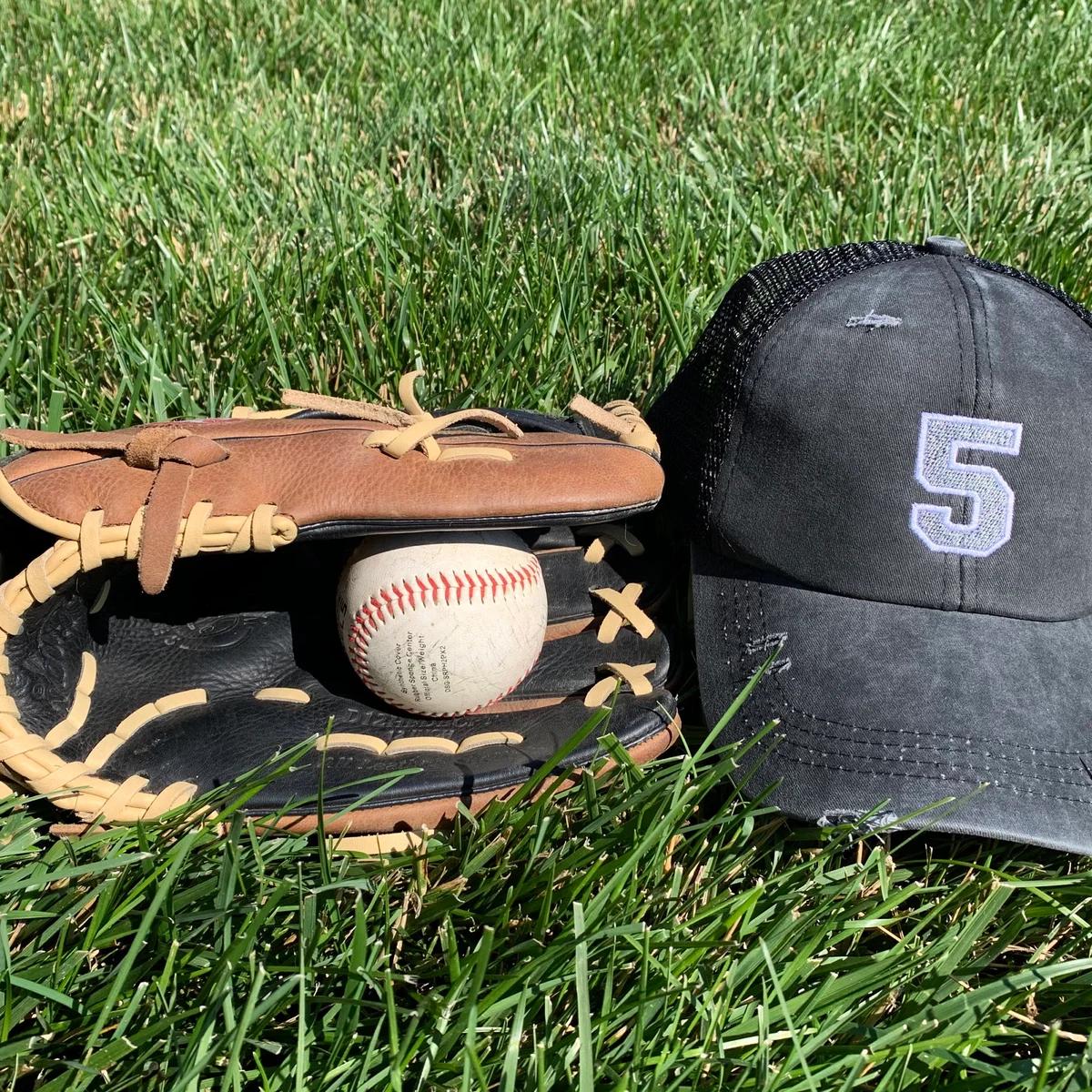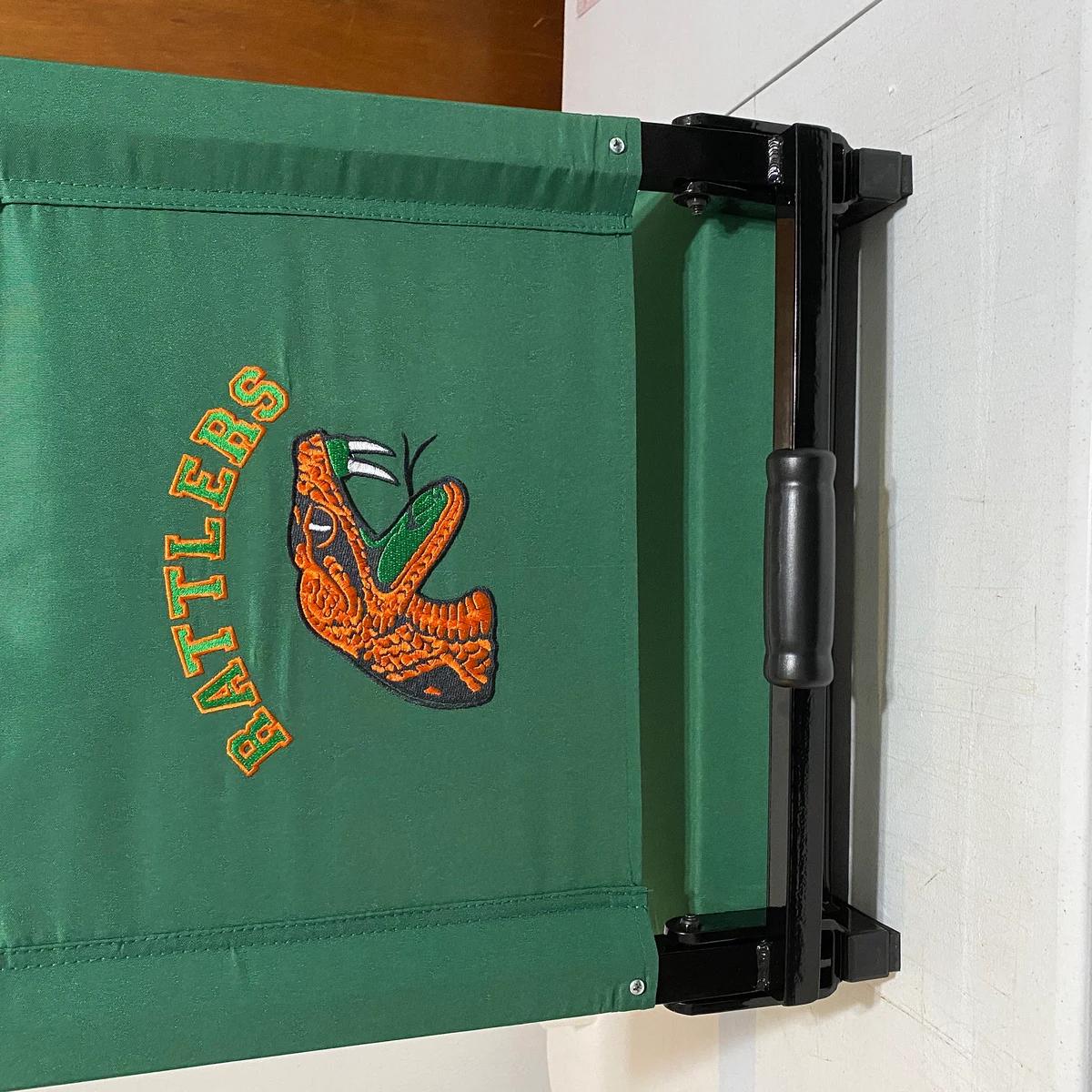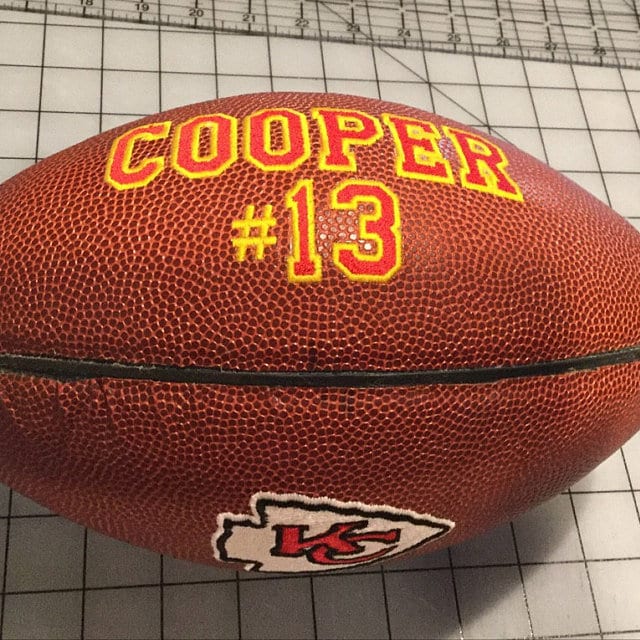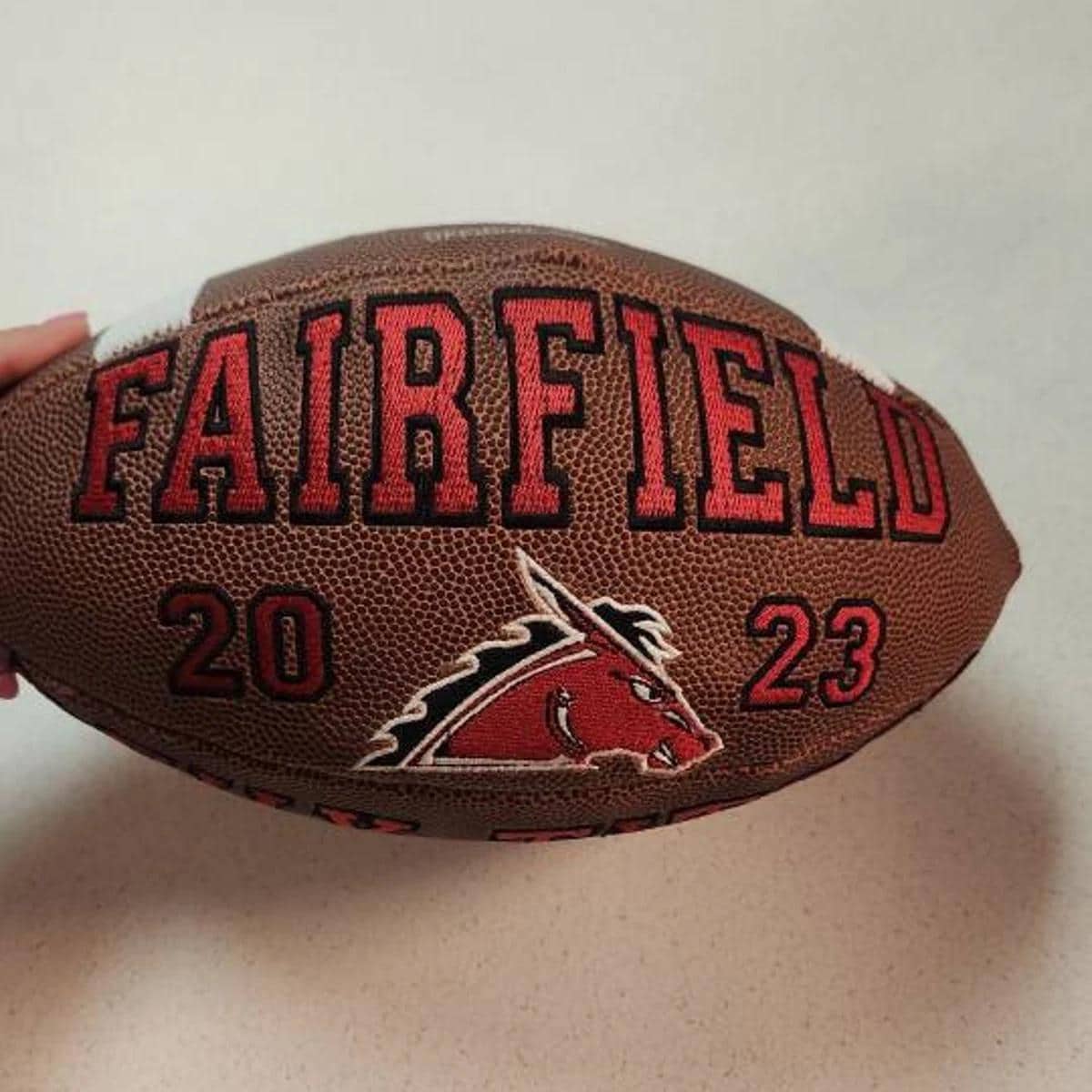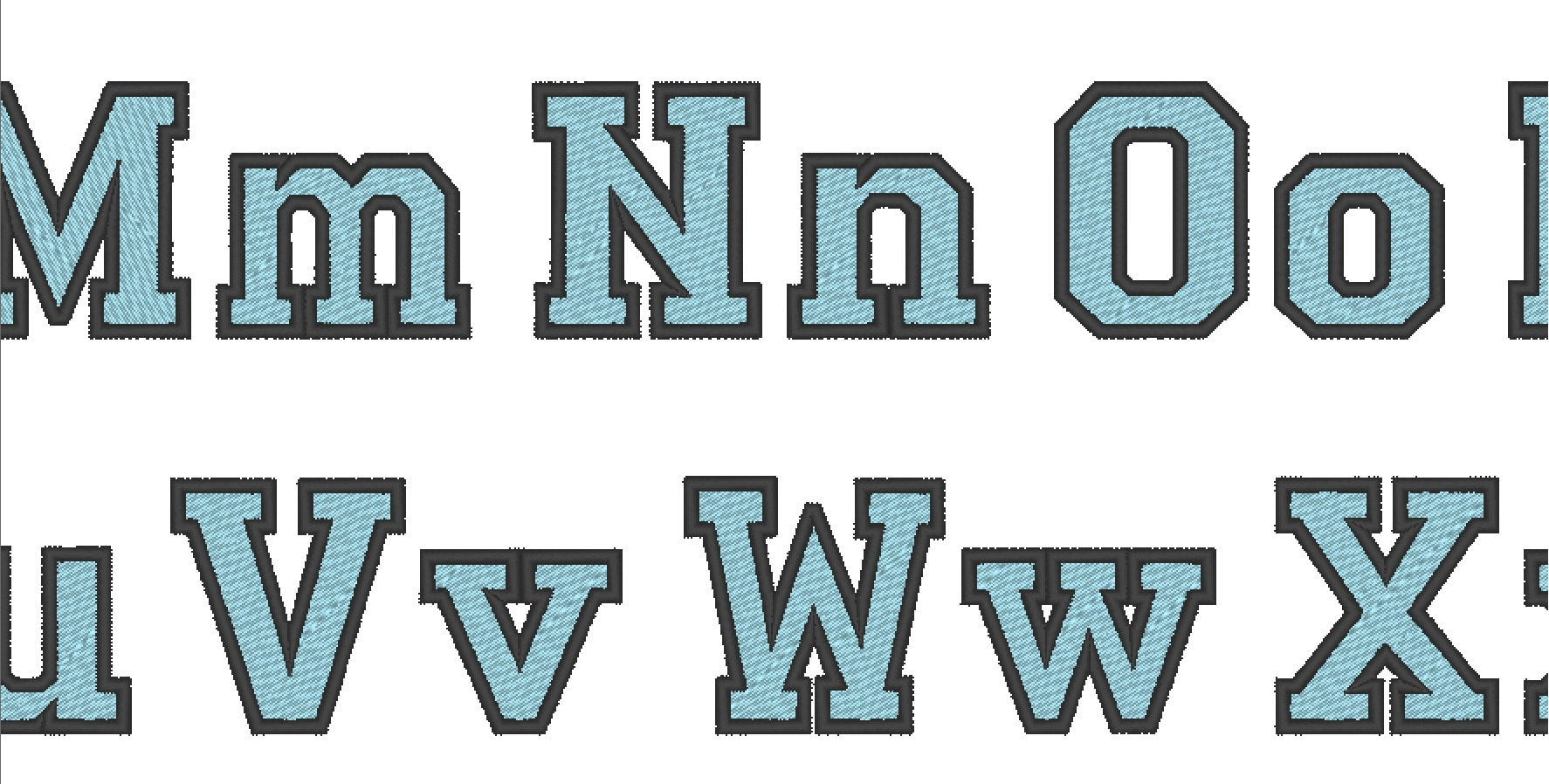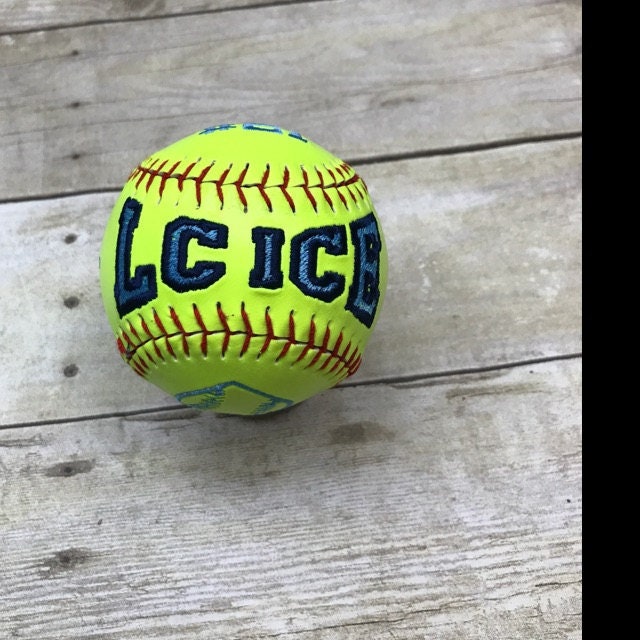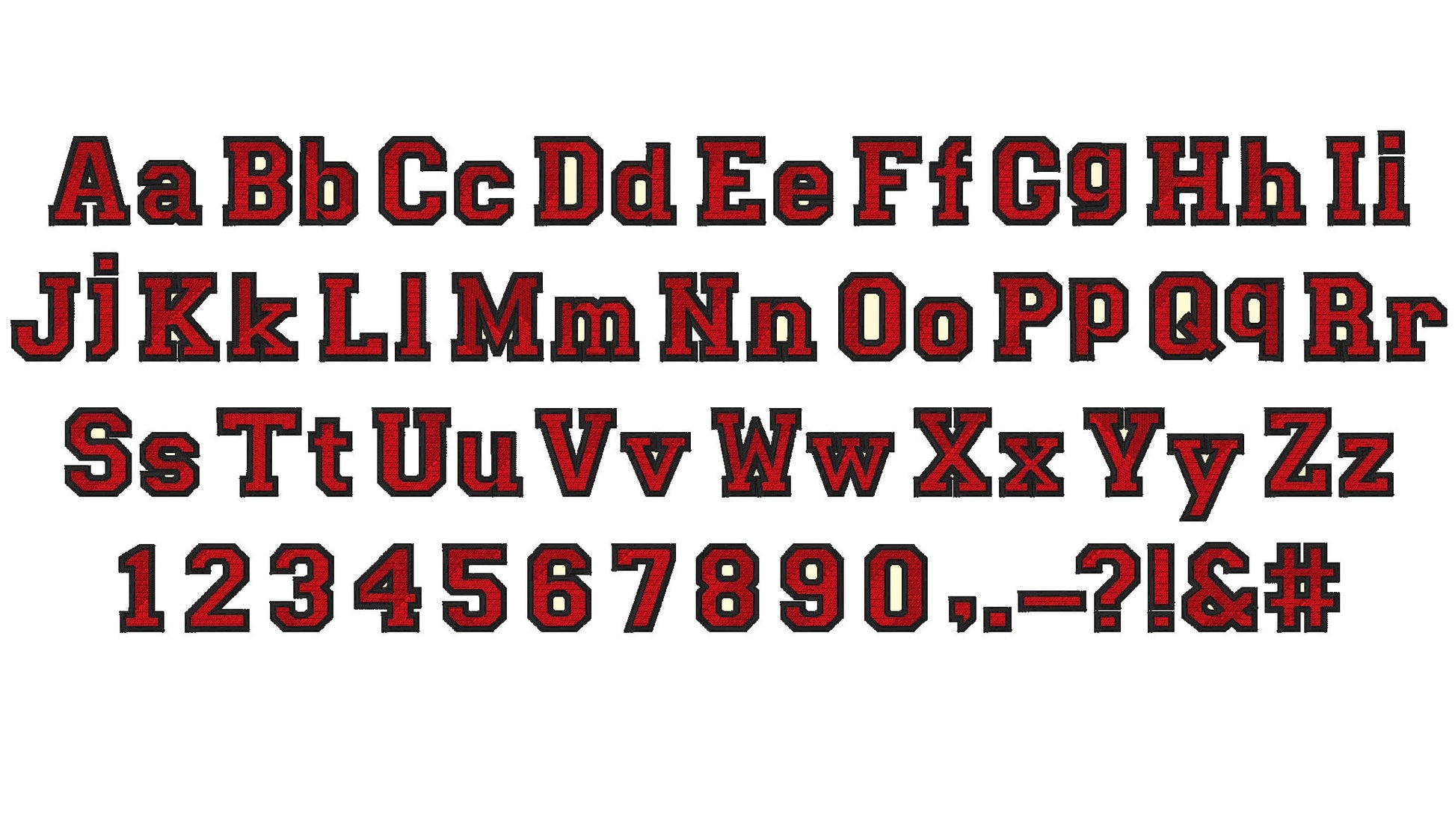
Stitched out very well for me
This font stitched out great!
Great job nice size for both capital and lower case letters and punctuation.
It was a beautiful stitch!
Easy to download and stitched perfect!
Great design! Love the filled font look.
The file is wonderful. Everything stitched out beautifully.
Stitched out very well. No issues.
this stitched out great, no issues
Looked really nice and stitched out well.
Great Font! Embroidered well, will be perfect for what I need.
Awesome!! I needed a school shirt in a hurry and I whipped it up in no time with this amazing font.
A must have in your collection 😍
This product was just what I wanted! It sewed out great and my customer was very happy. thank you!
loved it! It was exactly what I wanted. My coustomer asked for and she thanked me over and over.
Great design and has sewn out great so far!
Love this font!
File stitched out perfectly in the smallest size - very pleased with my purchase! Look forward to using the other sizes on future projects. Will buy more files from this seller and would highly recommend.
This font stitches out beautiful
Stitched out purfect 😁 will highly recommend
Purchased this file because of the size options. The 1” text stitched nicely on a bucket hat.
Easy download and letters stitched out beautifully!
Love all these beautiful fonts
Nice, could be better, some letters the digitation is off 🙃
I needed a small letter for a knit hat and with all the different sizes it was perfect and stitched out nicely
Really like this font. Easy to download. I have a Brothers PE800 embroidery machine and my 3 projects came out perfectly.
Downloaded and printed well, even after resizing.
stitched out perfectly and was exactly what I needed.
Instant download. Letters stitched out beautifully.
Stitched out perfect!
Stiched out with no issues, like the fact it outlines the letters and not a full background and then stich over.
Stitched out well even with the small size I had to use on my project
Sewed out clean And neat
Amazing font! Stitches are beautiful and the overlap of the outline is perfect! No spacing at all! Thank you for such a wonderful design!!! Need more like it! Perhaps a cursive baseball font with an outline just like this!